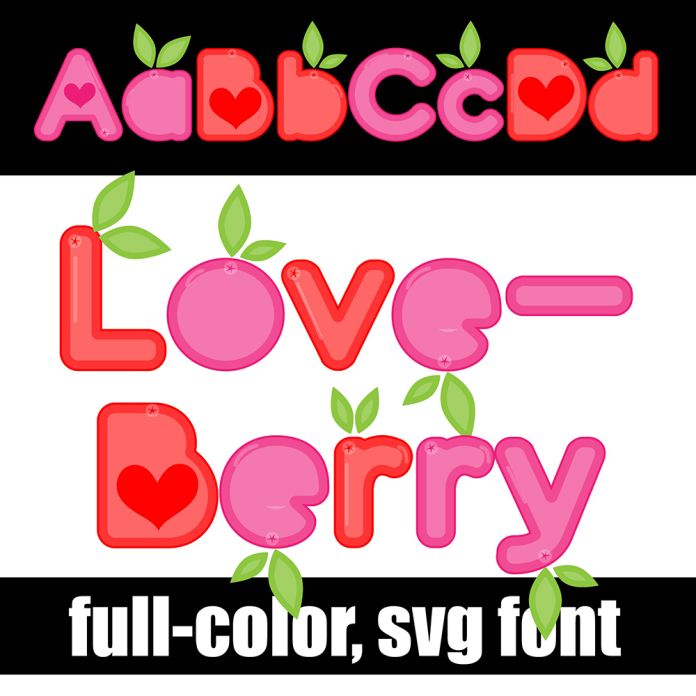
This full-color font features sans serif lettering disguised as berries with hearts. There is an alt case with an additional color of each letter. This font works best for titles, displays, posters and more. Please note color fonts will show as black in non compatible programs. This font type is compatible with Silhouette Studio.